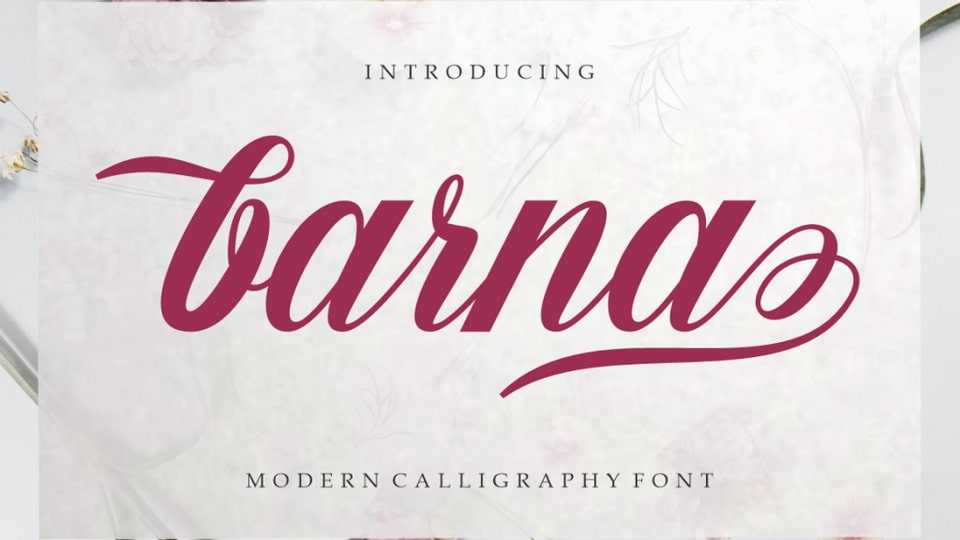
Download Barna font, a modern calligraphy typeface. This font is made for those of you who need a touch of elegance and a reflection of modern style in their designs.
Designer: Gian Studio